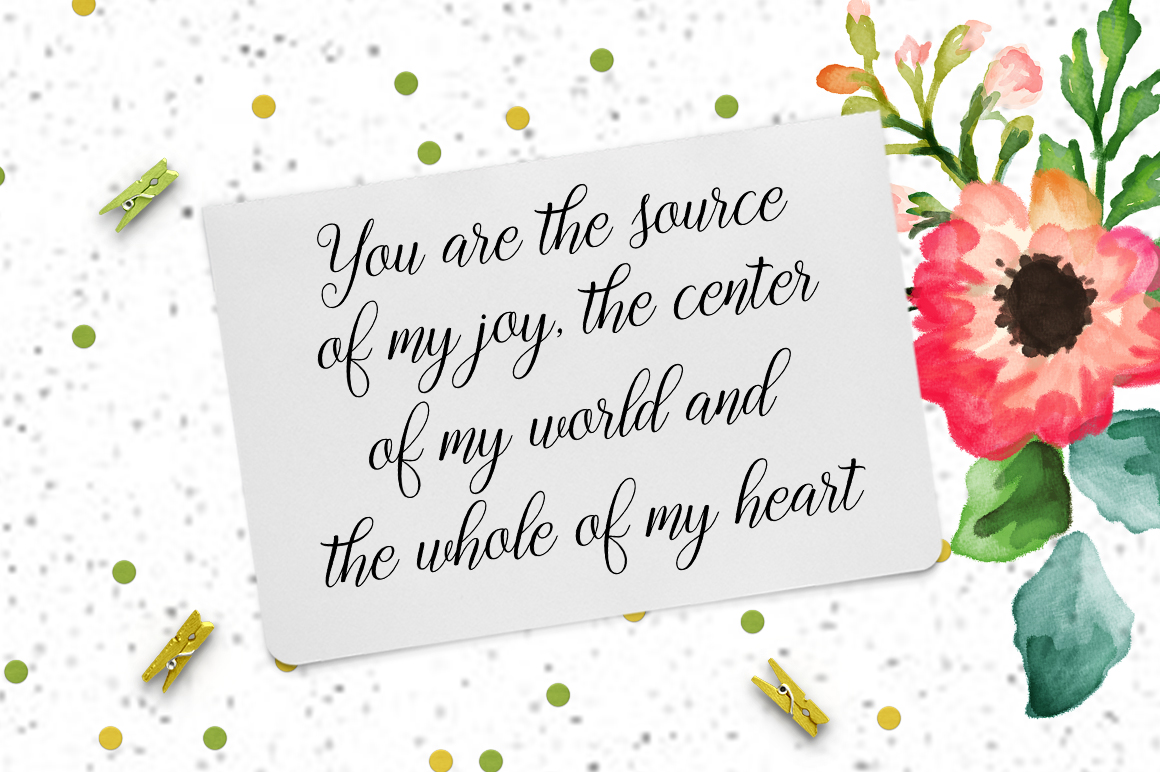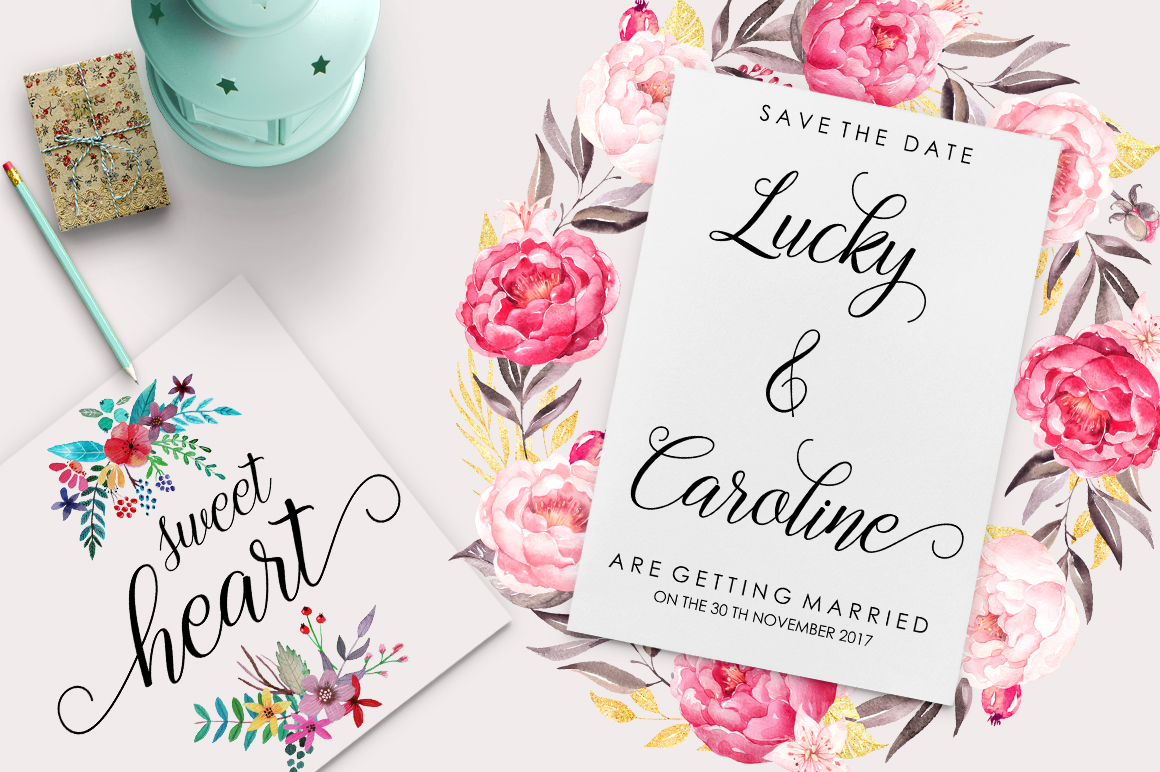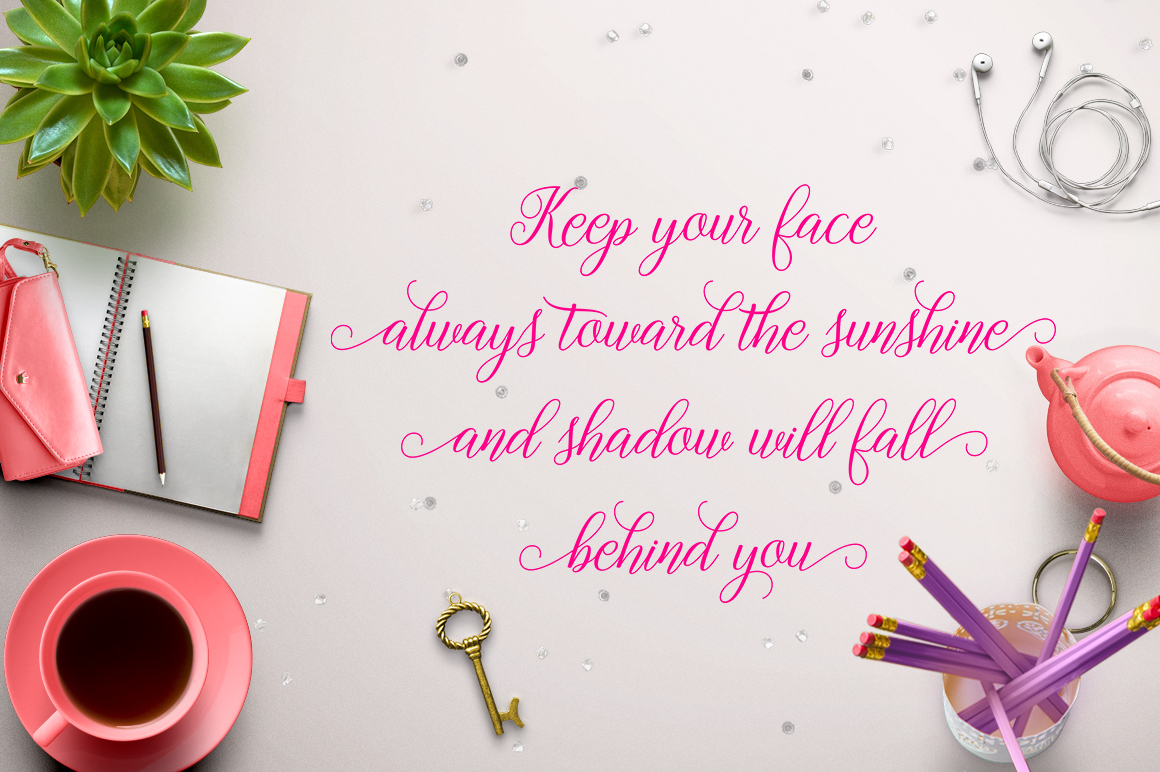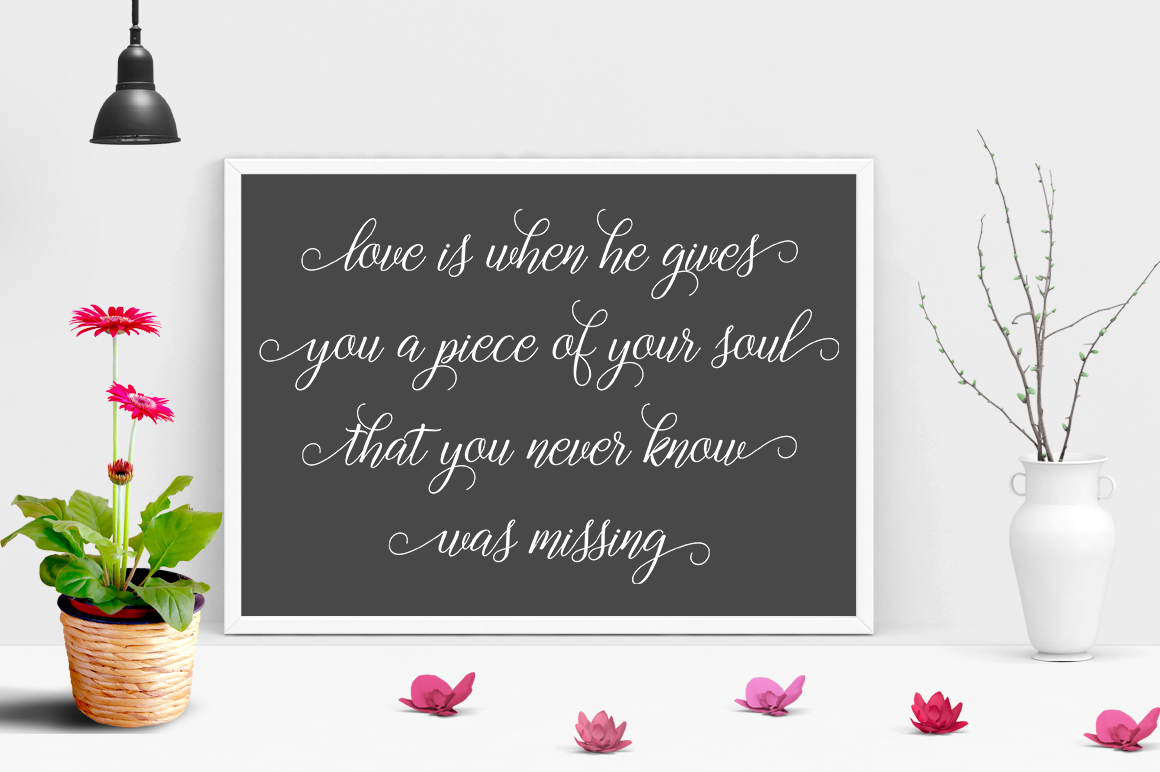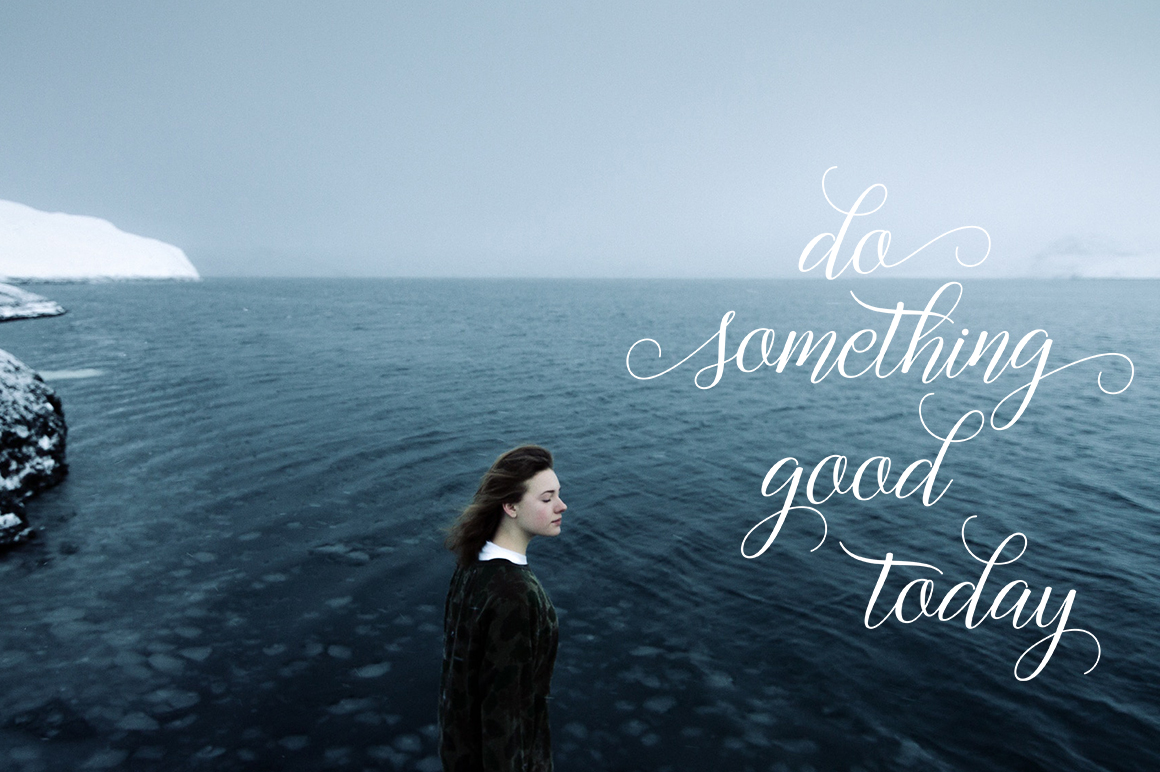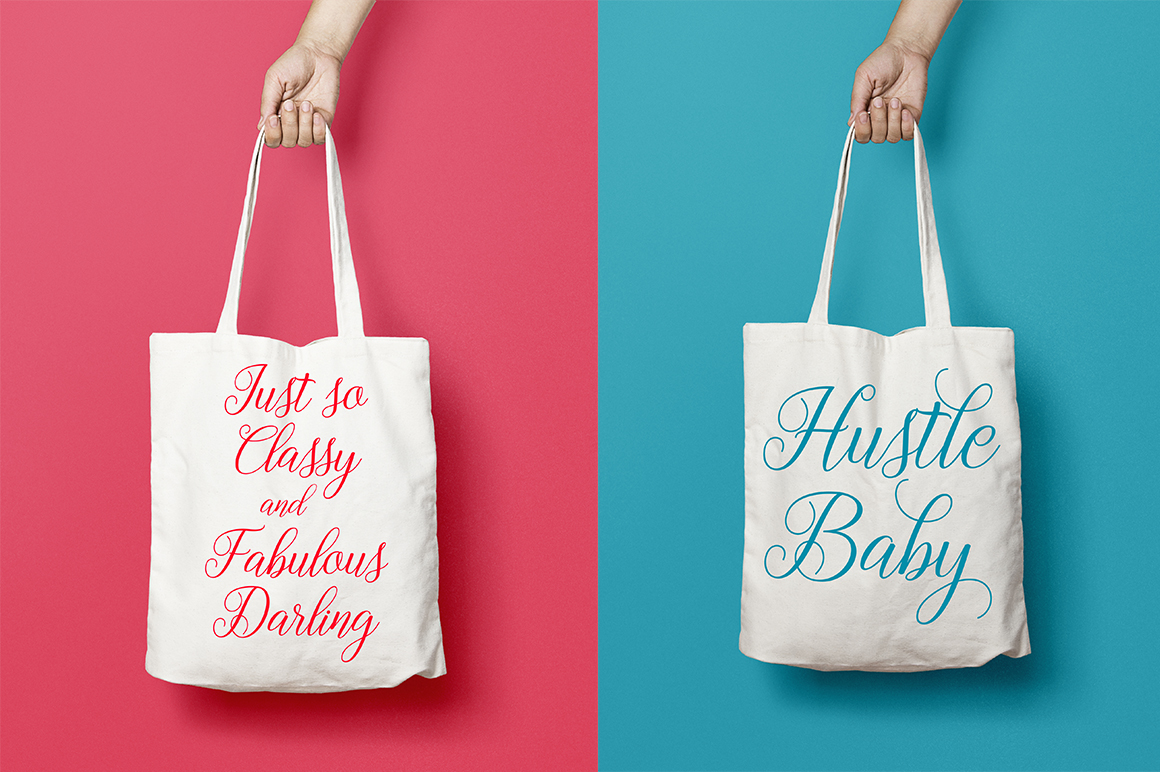
Introducing Gebrina Script Font: Elevate Your Design with Modern Calligraphy
In the world of typography, script fonts hold a special place for their elegance, fluidity, and ability to add a touch of sophistication to any design. Among these, the Gebrina Script Font stands out as a modern calligraphy masterpiece. With its casual yet commanding presence, Gebrina offers a unique blend of idyllic charm and sensual appeal, making it an excellent choice for designers looking to elevate their projects. In this article, we’ll dive deep into the features, benefits, and applications of the Gebrina Script Font, exploring how it can modernize your design and take it to the next level.
The Essence of Gebrina Script Font
Gebrina is not just any script font; it’s a standout piece of modern calligraphy that captures the essence of both casual elegance and demanding sophistication. Its letters flow with a grace that can add a luxurious feel to any design, making it perfect for a wide range of applications, from wedding invitations and branding to packaging and digital content. The beauty of Gebrina lies in its versatility; it’s idyllic and sensual, capable of conveying a sense of warmth and intimacy while also exuding a level of professionalism.
Why Choose Gebrina?
There are several reasons why Gebrina should be your go-to script font for your next design project:
- Modern Appeal: Gebrina brings a modern twist to traditional calligraphy, making your designs instantly contemporary and relevant.
- Versatility: Its casual yet sophisticated vibe means it can be used across various design projects, from the personal to the professional.
- Elegance and Sophistication: The fluid strokes and elegant ligatures of Gebrina add a touch of luxury to any text, making it perfect for high-end branding and marketing materials.
- Readability: Despite its elegant nature, Gebrina maintains a high level of readability, ensuring your message is conveyed clearly and effectively.
Applications of Gebrina Script Font
The versatility of Gebrina means it can be applied to a myriad of design projects. Here are some ideas to get you started:
- Wedding and Event Stationery: Use Gebrina for wedding invitations, save-the-date cards, and event programs to set a tone of elegance and romance.
- Branding and Logo Design: Gebrina can add a touch of sophistication and modernity to your brand’s logo and marketing materials.
- Packaging Design: Stand out on the shelves with packaging that features the elegant and modern appeal of Gebrina.
- Digital Content: From blog headers to social media graphics, Gebrina can elevate your digital content, making it more engaging and visually appealing.
Tips for Using Gebrina Effectively
To make the most of Gebrina, consider the following tips:
- Pair with Contrasting Fonts: Combine Gebrina with simpler fonts to create contrast and make your design more dynamic.
- Adjust Letter Spacing: Experiment with letter spacing to ensure your text is readable and visually appealing.
- Use it Large: Gebrina shines when used in larger sizes, making it perfect for headlines and titles.
Gebrina Script Font is a powerful tool for any designer looking to add a touch of modern calligraphy to their work. Its unique blend of casual elegance and sophisticated charm makes it versatile and highly applicable across various design projects. Whether you’re working on a wedding invitation, a brand logo, or digital content, Gebrina can help you create designs that are not only beautiful but also memorable. Embrace Gebrina in your next project and experience how it can modernize your design and take it to new heights.